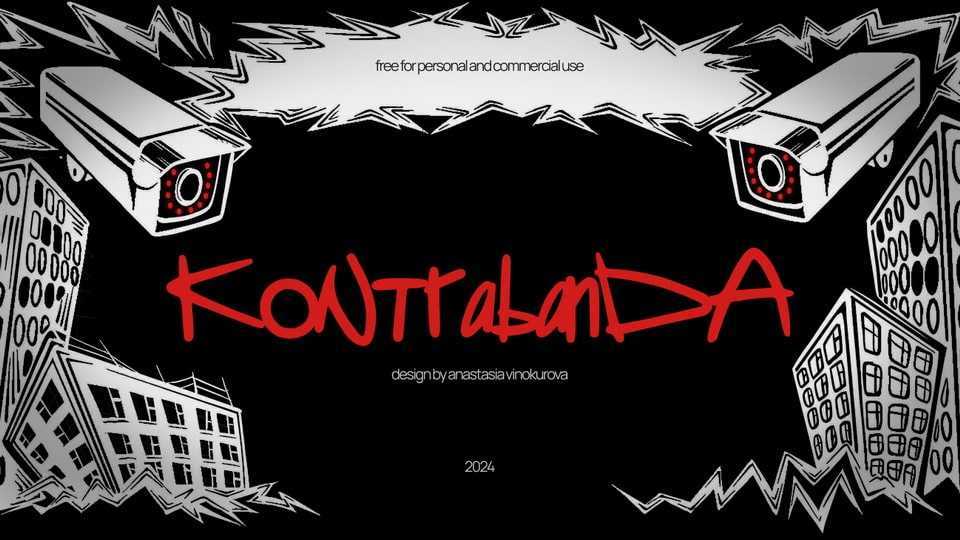
Kontrabanda New Font › Fontesk
Download Kontrabanda font, a rebellious and raw hand-drawn typeface that embodies an underground, street-art aesthetic.
Designer: Anastasia Vinokurova